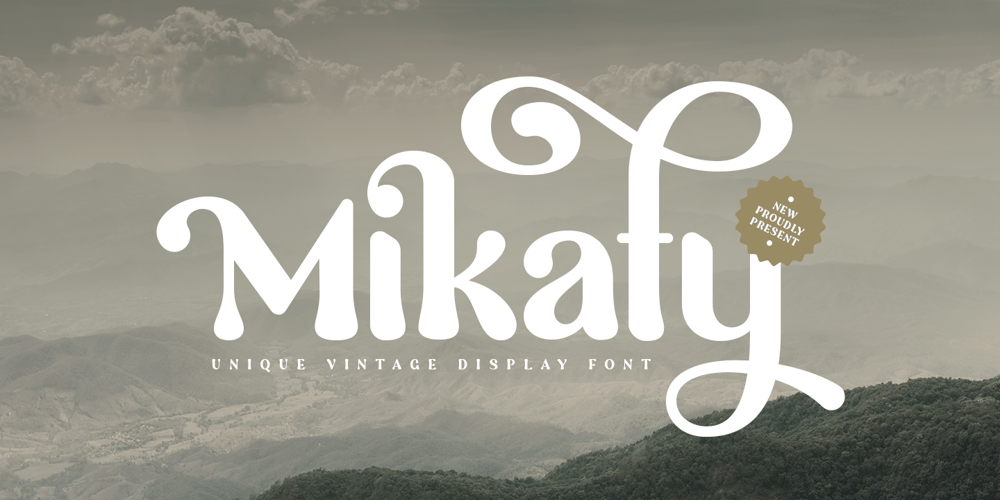
Mikaty Font Family was designed by Zamroni Hamzah and published by Sensatype Studio. Mikaty contains 2 styles and family package options. MIkaty is an Unique Vintage Display FontA New Fancy Retro font that we created special for Unique branding needs, with extra alternates in unique style that ready to add value of your brand. It’s so nice to leverage designer or product owner that need solutions to make their design look more unique and vintage.MIkaty Unique Vintage Display Font ready with: Lowercase and Uppercase characters Numbers and Punctuations 4 files format already Preview as a inspirations that you can do with MIkaty font Available for PC and Mac Wish you enjoy our font.